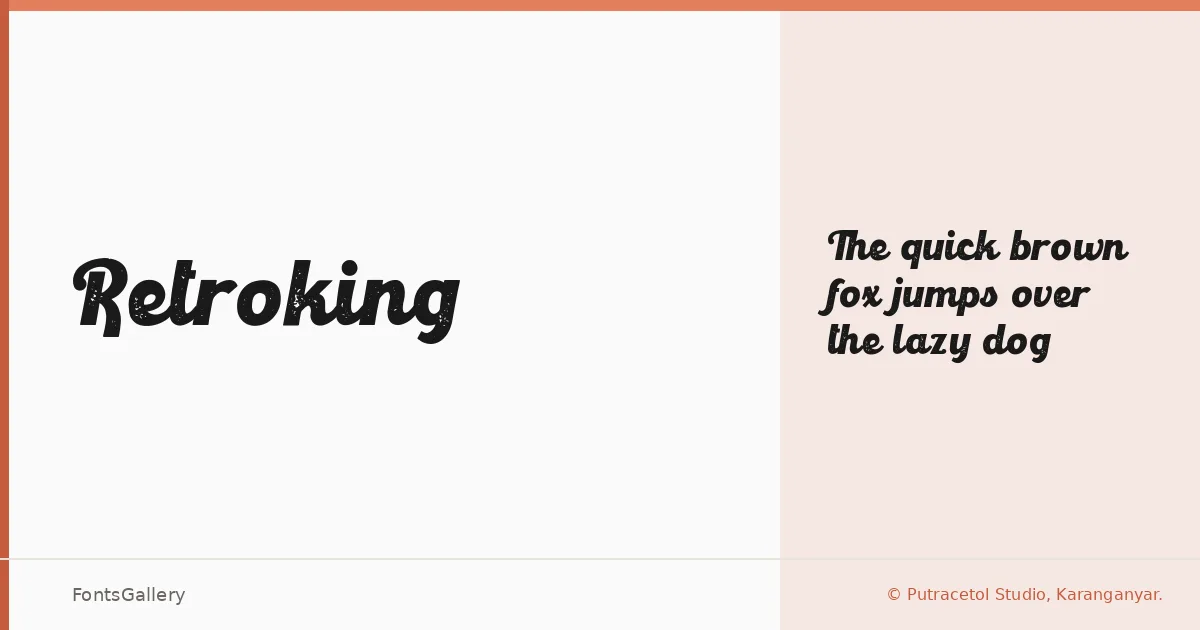
About Retroking Font
There is a deliberate roughness to this script — the kind of hand-lettered confidence you see on vintage signage and old band merchandise, where every stroke carries a little grit. Retroking is the work of Putra Novembria Candra Kusuma of Putracetol Studio, Karanganyar, and it arrives as a single Regular weight in TTF format. The letterforms lean into their own weight without apology, trading elegance for character.
This is a bold, playful script with a distinctly rustic and vintage temperament — the sort of face that reads immediately as handcrafted rather than constructed. The single Regular cut is dense and expressive, with strokes that feel like they were drawn with a wide brush or worn nib. Latin coverage keeps the scope focused, but within that range the letters have real presence at display sizes. It sits comfortably in the space between retro Americana and contemporary street-wear lettering.
Its natural territory is anywhere a strong, characterful headline needs to carry personality fast: poster campaigns, social media graphics, T-shirt artwork, logo lockups, and branding that wants an artisanal or vintage edge. When you need to balance the script against something cleaner, the listed pairings — Anglecia Pro, Helvetica, AQUA, Abrade, and Aranea — each offer a useful counterweight, from the neutrality of Helvetica to the contrasting character of the others.